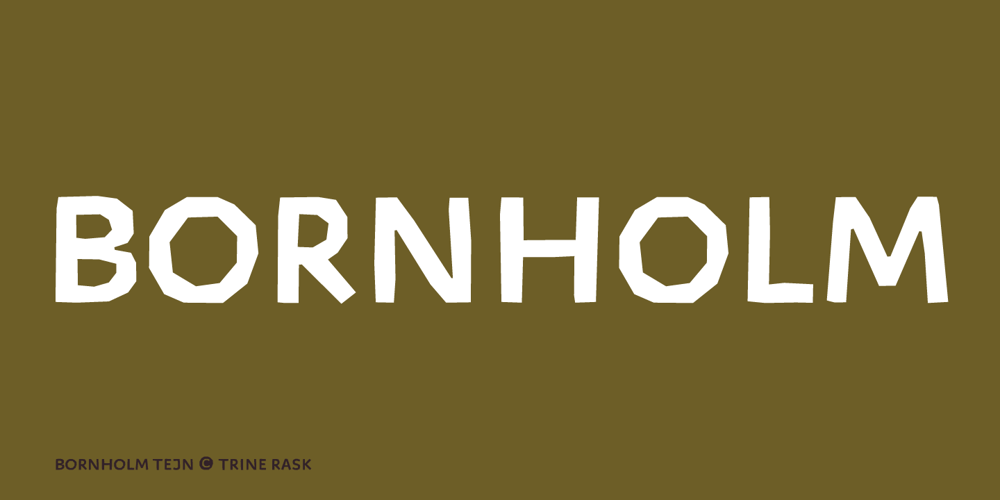
Bornholm Tejn Font Family was designed by Trine Rask and published by Trine Rask. Bornholm Tejn contains 2 styles and family package options. Bornholm Tejn is named after the Tejn village on the only rocky island in Denmark, Bornholm. It is the first face in a series of rough stone cut typefaces, that shares proportions, but differs in any other aspect like different pieces of rock. It is powerful face, but still very friendly. Good for very big sizes, but can be used for small texts, movie titles, cartoons and more.